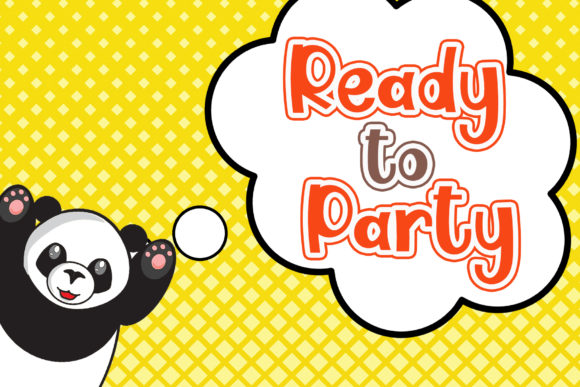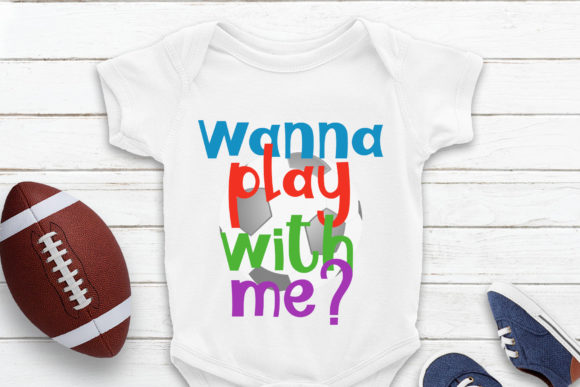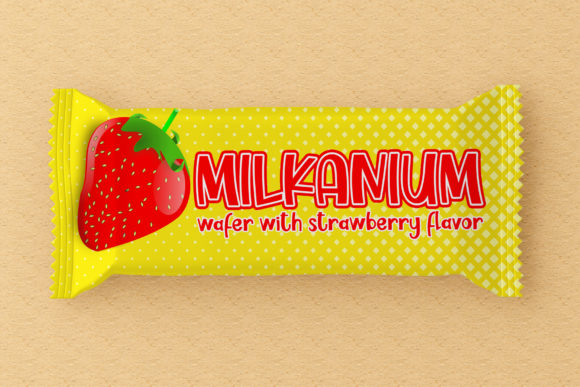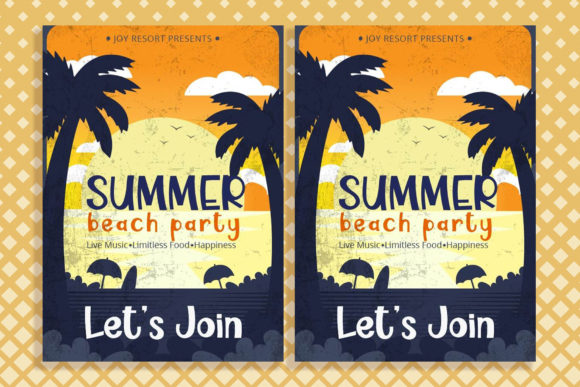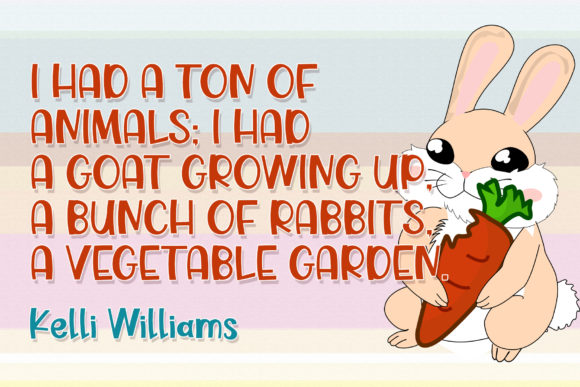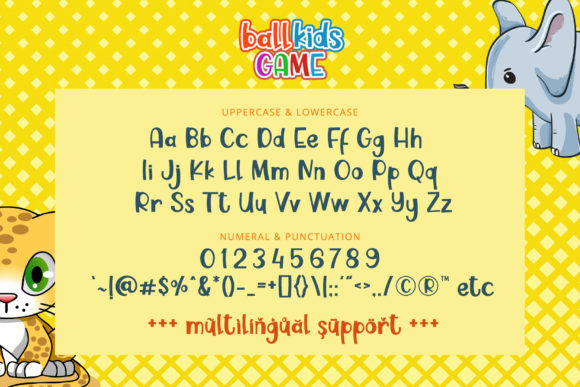
Introduction to Ballkids Game Font
Ballkids Game is fresh and fun display font.
This font radiates a playful vibe of design It embodies playfulness and authenticity and is the perfect choice for any children activity or school project.
Key Features of Ballkids Game Font
Why Choose Ballkids Game Font?